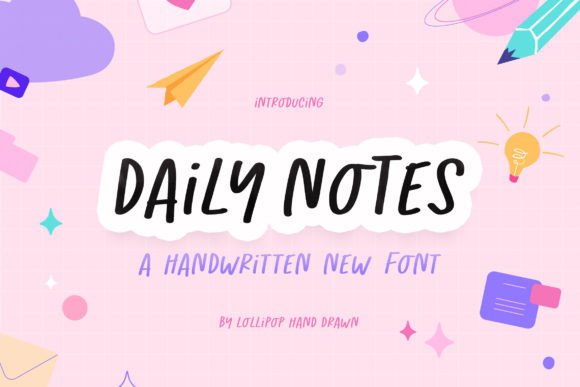
Are you looking for the perfect handwritten font to add a touch of personality and uniqueness to your design projects? Look no further than Daily Notes Font, the best font for digital notes on the market!
Created by the talented team at Lollipop Hand Drawn, Daily Notes Font is a display font that adds a playful and organic touch to any design project. Its quirky and exquisite handwritten letterforms are uneven and irregular, creating a sense of personality and charm that is sure to captivate your audience.
Whether you're designing greeting cards, logos, or any other creative application, Daily Notes Font is the perfect choice. Its bold and eye-catching style will make your designs stand out from the crowd, while its unique and organic character will add a touch of warmth and humanity that is sure to connect with your audience.